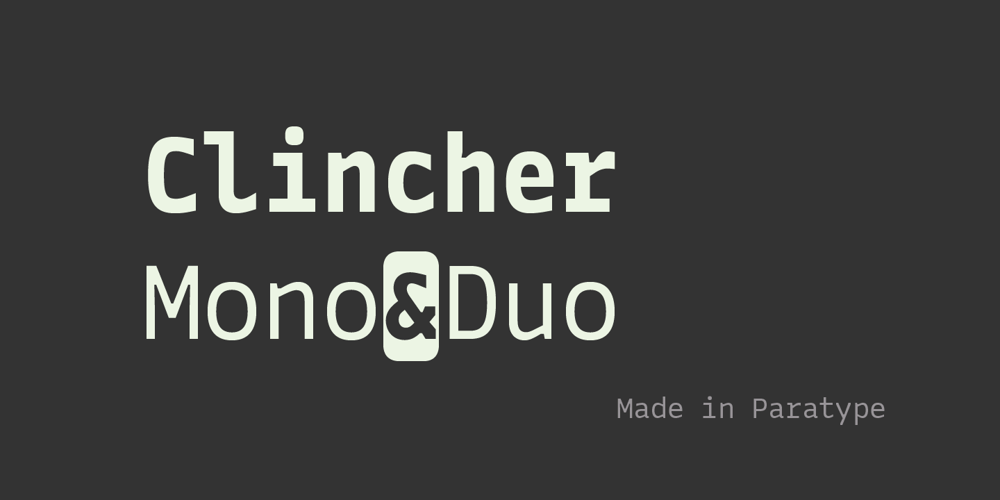
Clincher Font Family was designed by Alexander Lubovenko and published by ParaType. Clincher contains 15 styles and family package options. Clincher is a set of monospaced and duospaced fonts designed specifically for program coding and user interface design. Distinctive font design and multiple alternates allow to use it in advertising, wayfinding and signage as well as in short texts when regularity and monospacing is important. The font was designed by Alexander Lubovenko and released by Paratype in 2018.